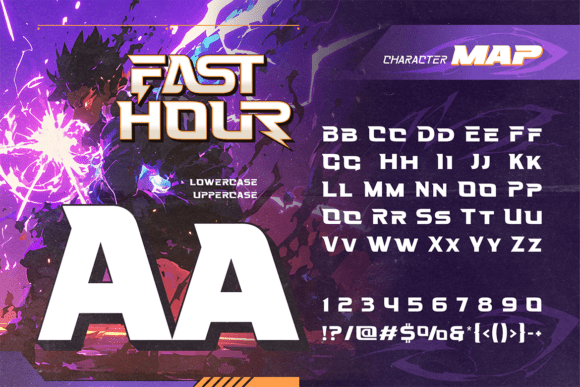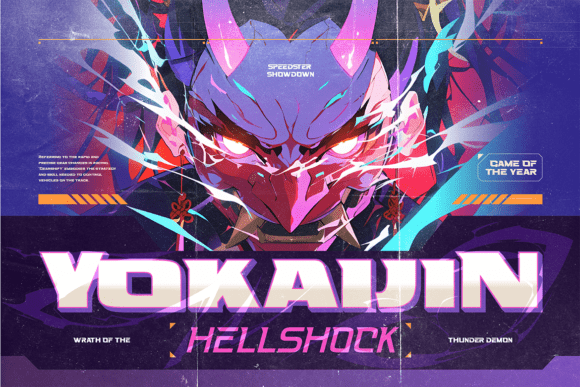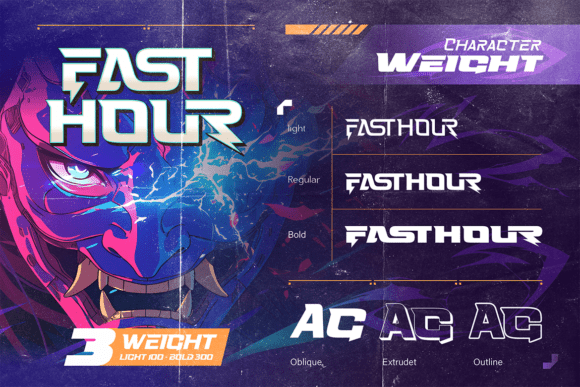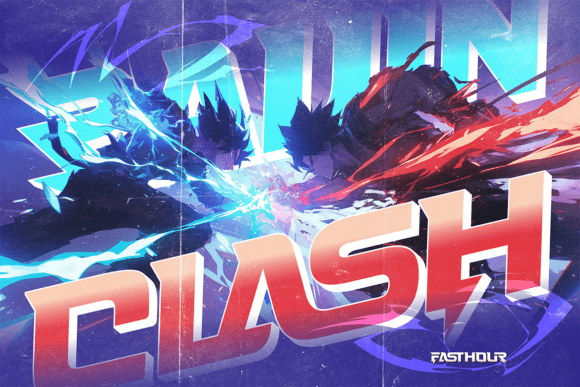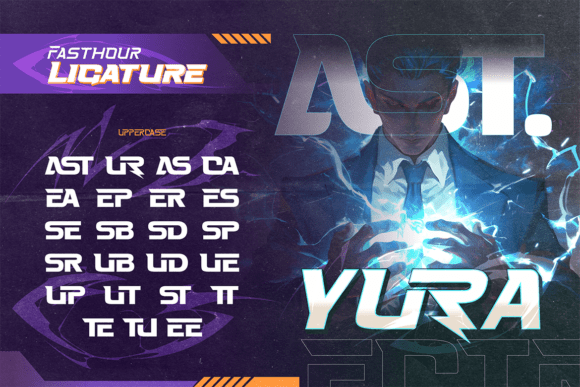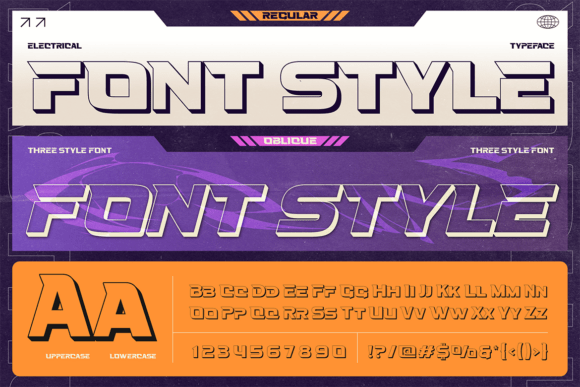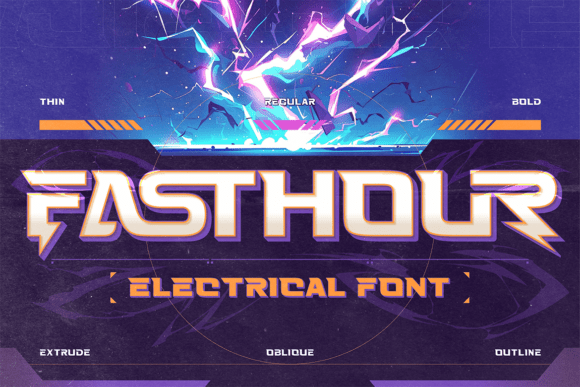
Unleash the Power of Fasthour Font: Energize Your Designs with Speed and Motion
In the world of typography, a font can make or break the visual impact of a design. For designers and crafters looking to infuse their work with energy, speed, and a futuristic vibe, Fasthour Font is an exceptional choice. Inspired by the dynamic forces of electric power, speed, and motion, Fasthour is a high-energy display font that is sure to electrify your designs.
The Design: Sharp Cuts, Angled Forms, and Bold Structure
Fasthour’s design is characterized by its sharp cuts, angled forms, and bold structure, which combine to create a dynamic look that feels fast, charged, and futuristic. This font is not just a typeface; it’s an experience. The sharp cuts and angled forms give Fasthour a sense of motion, as if the letters are moving at high speed. The bold structure adds a level of confidence and strength, making it perfect for designs that require a powerful visual statement.
Multiple Styles for Endless Possibilities
One of the standout features of Fasthour Font is its versatility. Available in multiple styles, including Thin, Regular, Bold, Oblique, Outline, and Extrude, Fasthour offers designers the flexibility to build a strong visual impact and layered typography. Whether you’re working on a tech branding project, sports visuals, gaming graphics, posters, event titles, or bold digital content, Fasthour has a style to suit your needs.
Thin: For Subtle yet Impactful Headlines
The Thin style of Fasthour is perfect for designers who want to create subtle yet impactful headlines. Its delicate structure allows for a level of sophistication, making it ideal for luxury brands, high-end products, or elegant designs.
Regular: The Foundation of Fasthour
The Regular style is the foundation of Fasthour, providing a balanced and harmonious look that works well for body text, titles, and headings. It’s the perfect choice for designers who want to add a touch of energy and motion to their designs without overpowering the content.
Bold: For Strong Visual Statements
When you need to make a bold statement, the Bold style of Fasthour is the way to go. Its confident and strong structure makes it perfect for headlines, titles, and any design that requires a powerful visual impact.
Oblique: Adding a Touch of Sophistication
The Oblique style of Fasthour adds a touch of sophistication and elegance to designs. Its slanted structure creates a sense of dynamism, making it perfect for designs that require a level of refinement and poise.
Outline: For a Unique Visual Effect
The Outline style of Fasthour offers a unique visual effect that is sure to grab attention. Its outlined structure creates a sense of depth and dimensionality, making it perfect for designs that require a level of creativity and innovation.
Extrude: For a 3D Effect
The Extrude style of Fasthour takes the font to the next level by adding a 3D effect. Its extruded structure creates a sense of volume and texture, making it perfect for designs that require a level of realism and immersion.
Perfect for Tech Branding, Sports Visuals, and Gaming Graphics
Fasthour Font is perfect for designers working on tech branding projects, sports visuals, gaming graphics, posters, event titles, and bold digital content. Its high-energy design and multiple styles make it an exceptional choice for any project that requires a powerful visual statement.
Why Choose Fasthour Font?
So, why choose Fasthour Font for your next design project? Here are just a few reasons:
- High-energy design: Fasthour’s sharp cuts, angled forms, and bold structure create a dynamic look that feels fast, charged, and futuristic.
- Multiple styles: With six styles to choose from, Fasthour offers designers the flexibility to build a strong visual impact and layered typography.
- Perfect for tech branding and gaming graphics: Fasthour’s design is perfect for tech branding, sports visuals, gaming graphics, posters, event titles, and bold digital content.
In conclusion, Fasthour Font is an exceptional choice for designers looking to infuse their work with energy, speed, and a futuristic vibe. Its high-energy design, multiple styles, and versatility make it perfect for tech branding, sports visuals, gaming graphics, posters, event titles, and bold digital content. If you need a font that feels powerful, modern, and electrically charged, Fasthour delivers the energy your design needs.